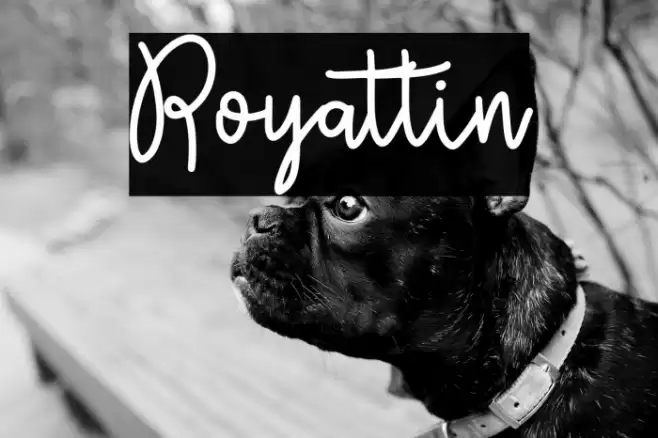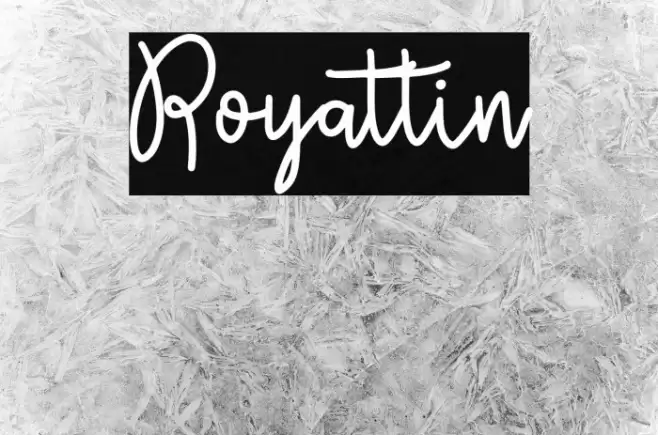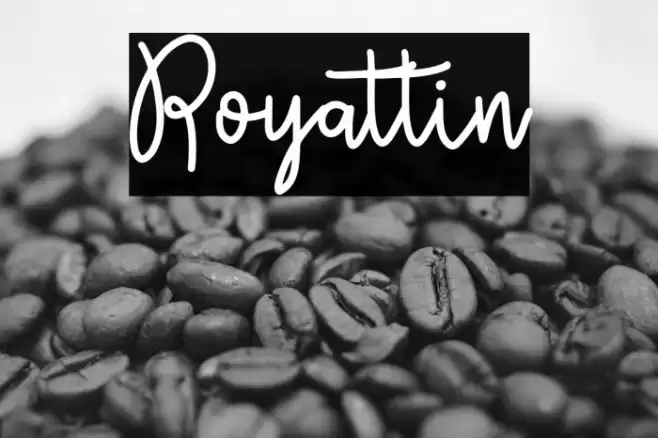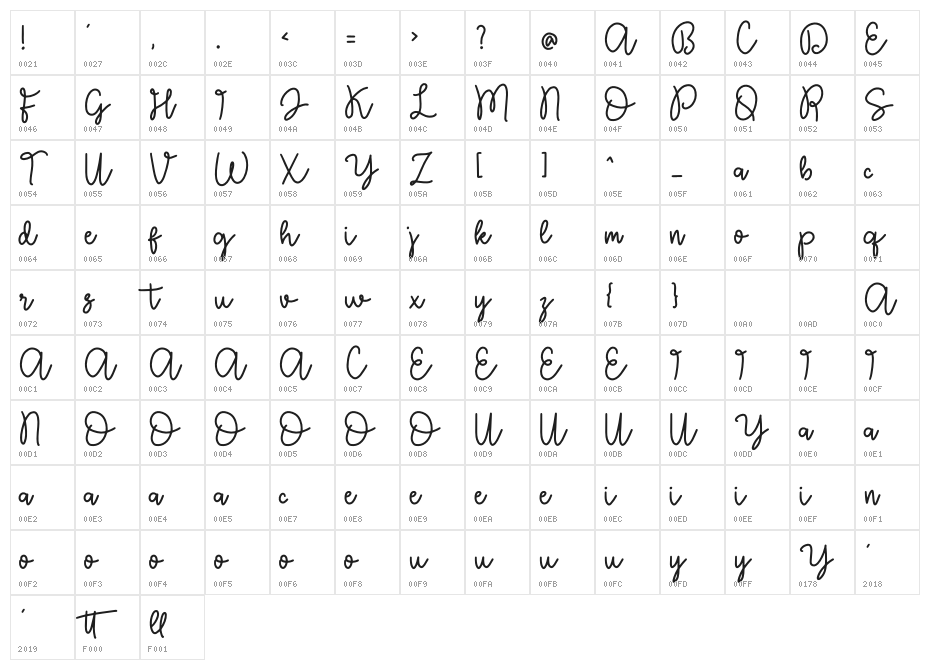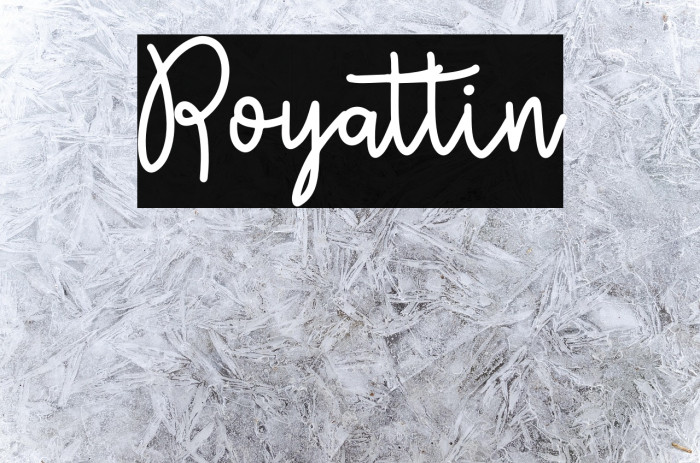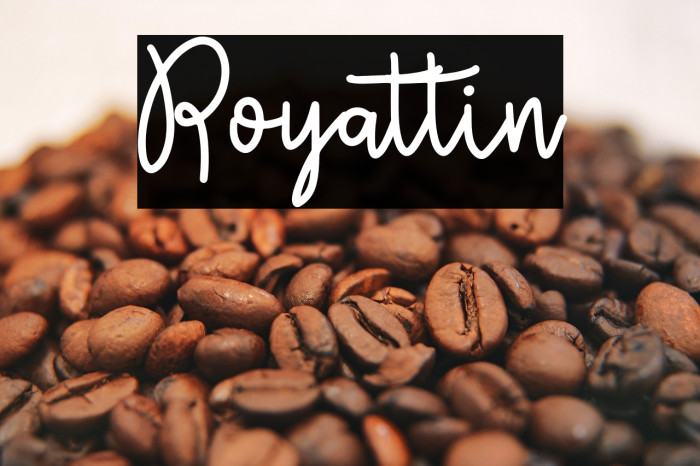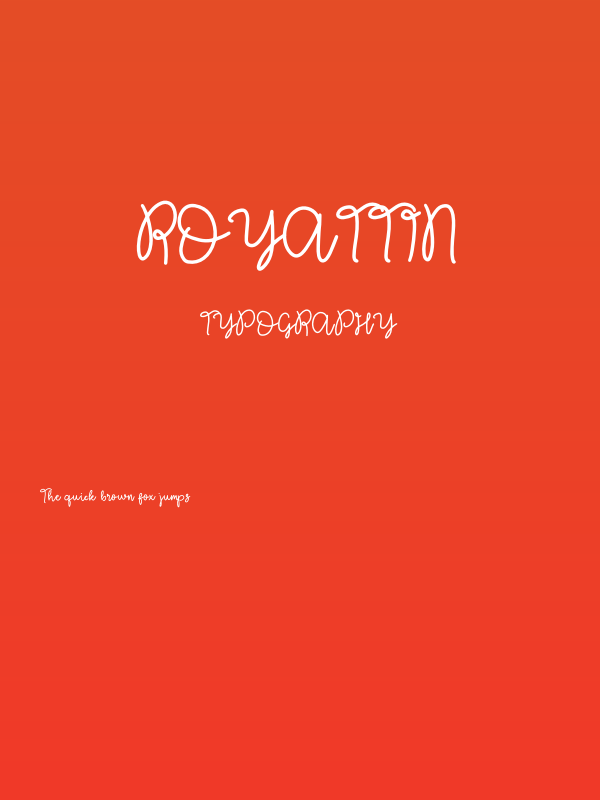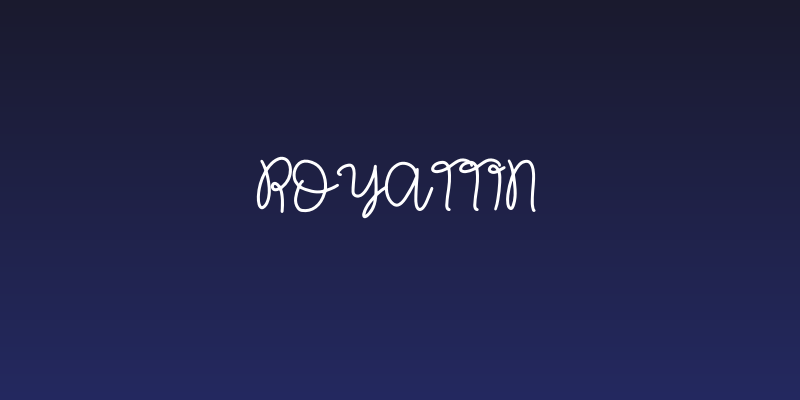
Royattin Font
Royattin Description
This font features a playful and elegant handwritten style, characterized by its fluid and continuous strokes. The uppercase letters maintain a consistent height with gentle curves, while the lowercase letters exhibit a more dynamic flow with varying heights and loops. The overall appearance is casual yet sophisticated, making it suitable for a variety of creative projects. The absence of special characters suggests a focus on alphabetic expression, enhancing its use in personalized and artistic contexts. This font's charm lies in its ability to convey a sense of warmth and approachability, ideal for projects that require a personal touch.
A playful and elegant handwritten font with fluid strokes from Regular fonts.
- Proposed Projects: Ideal for wedding invitations, greeting cards, personal branding, and creative projects.
- Overall Style: Casual, Elegant
- Use Case: Logos, Invitations, Personal Branding